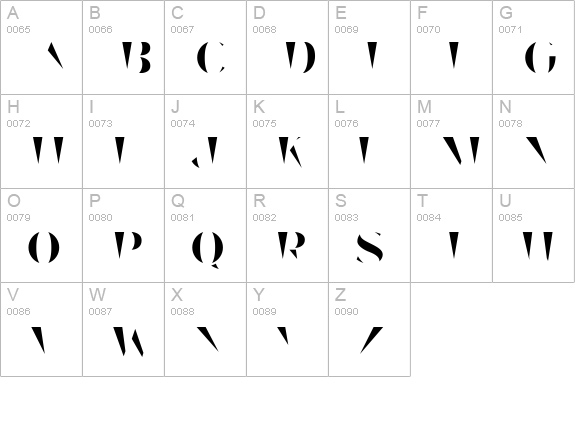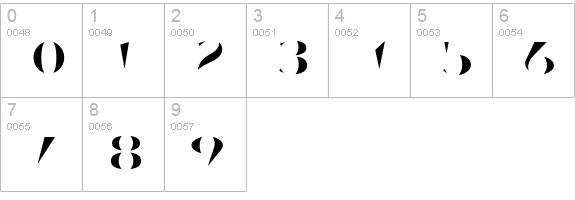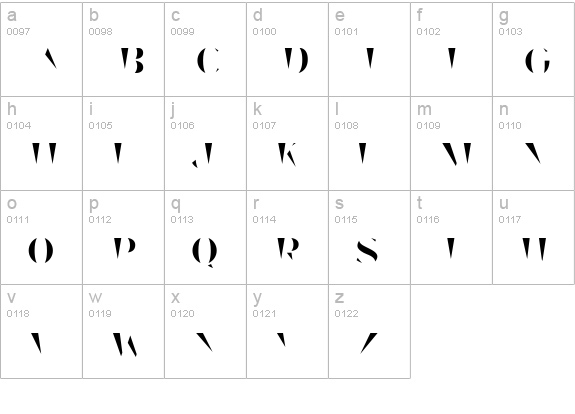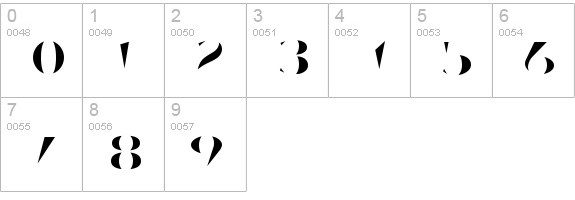
Stella Dallas Fill Font Details
Stella Dallas Fill font is a whimsical and charming typeface that exudes personality and flair. Its unique design features bold and eye-catching letterforms that are perfect for making a statement in your designs. The playful and decorative elements of this font make it ideal for use in branding, packaging, invitations, and more. What sets Stella Dallas Fill font apart is its versatility and ability to add a touch of fun to any project. Whether you're looking to create a cheerful poster, a quirky logo, or a festive greeting card, this font has you covered. Its bold strokes and intricate details will captivate your audience and leave a lasting impression. Best of all, Stella Dallas Fill font is freely available to download at FontsMarket.com. So go ahead and unleash your creativity with this delightful and expressive typeface. Let Stella Dallas Fill font bring your designs to life and make a memorable impact!